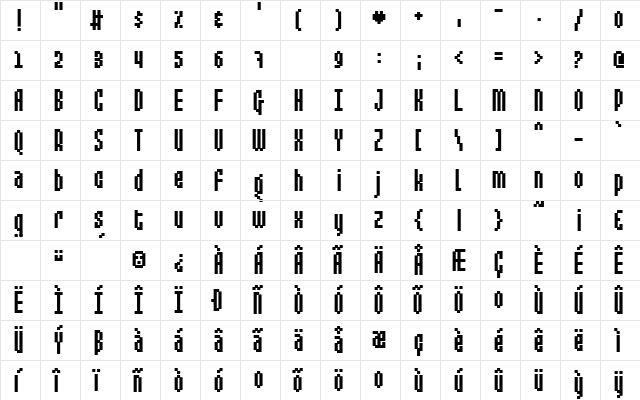
Mixelate III Regular Font Preview
Mixelate III Regular
Design Context for Mixelate III Typeface
Mixelate III takes a measured approach to typography — its balanced proportions and neutral character make it a reliable workhorse for both digital and print work.